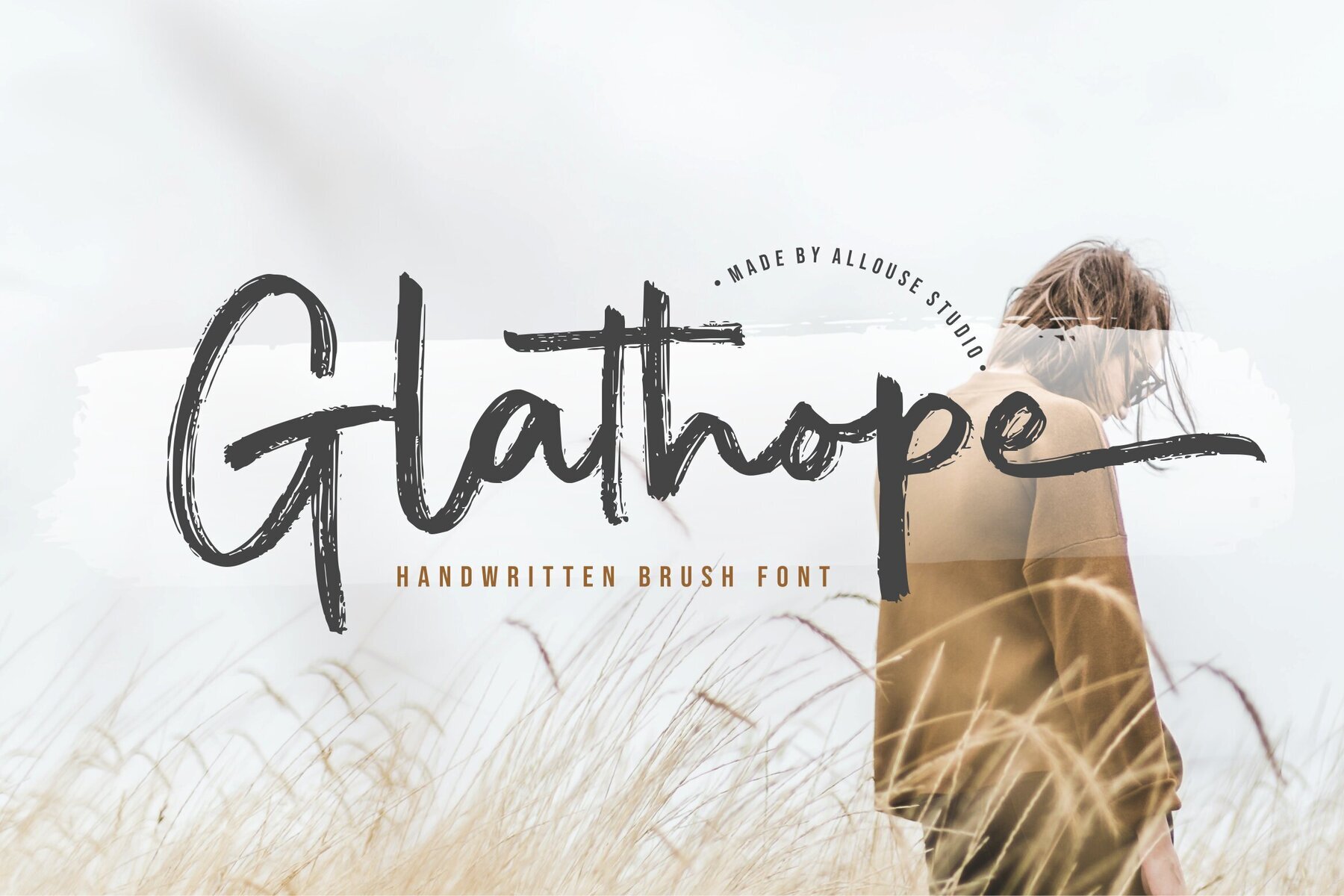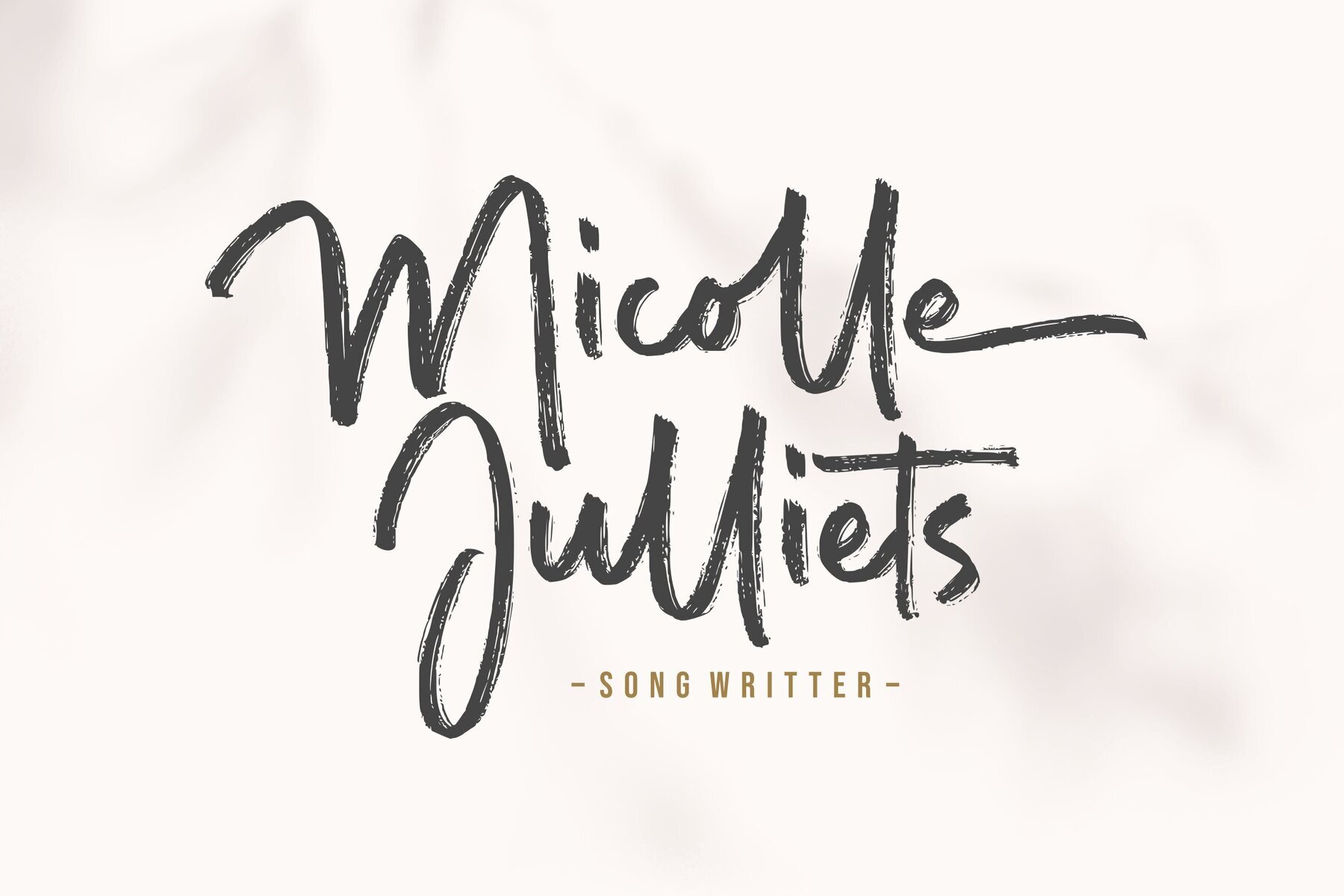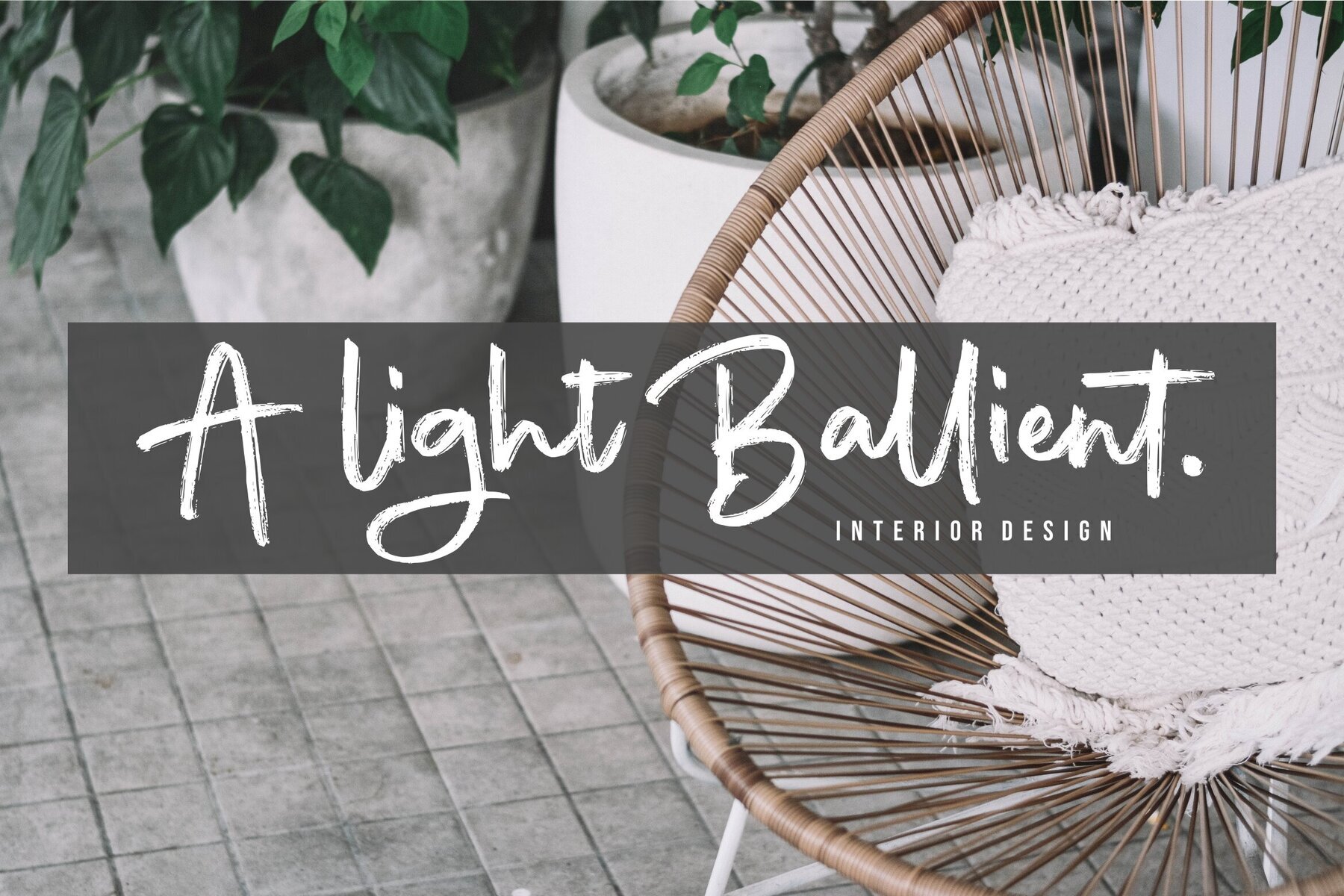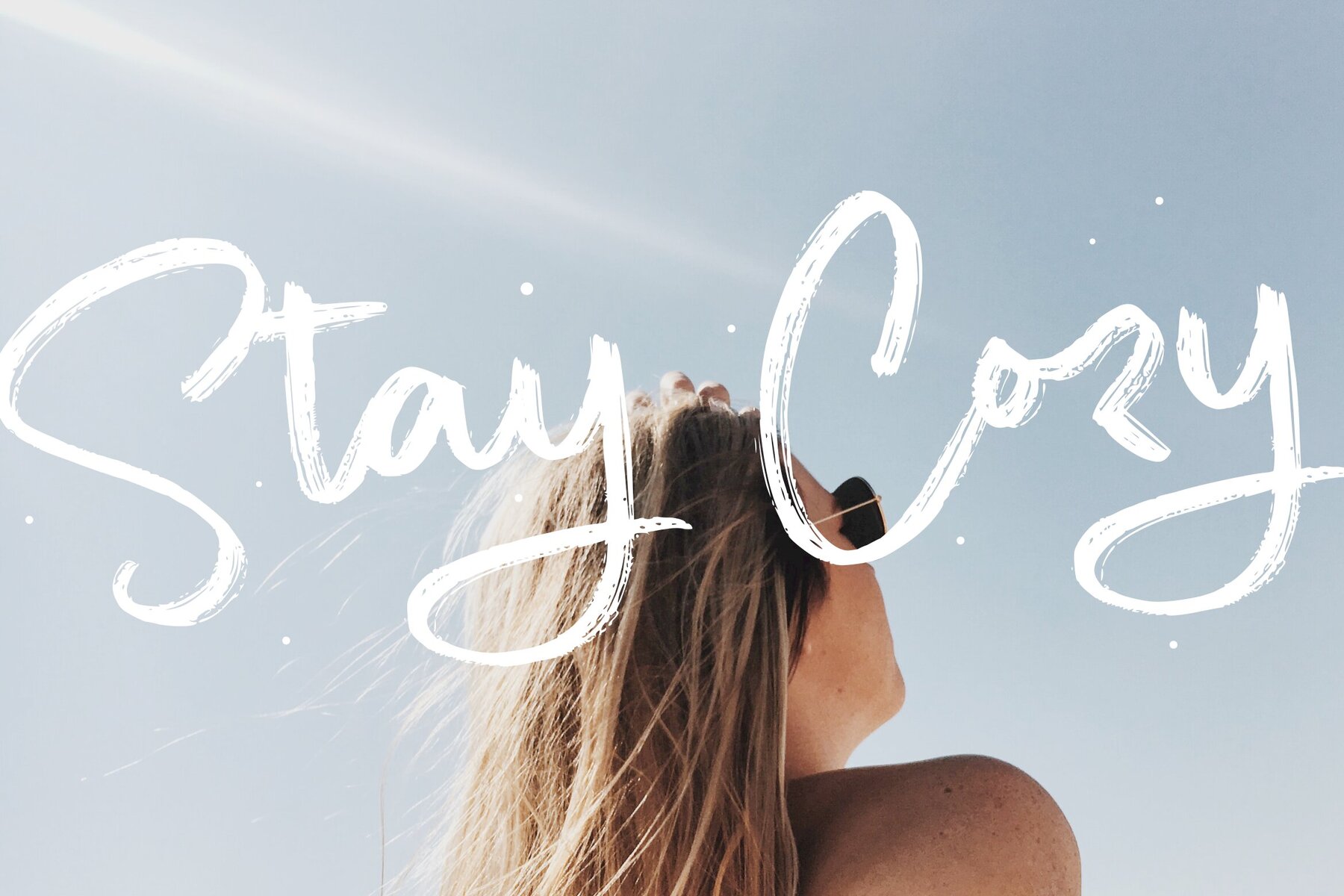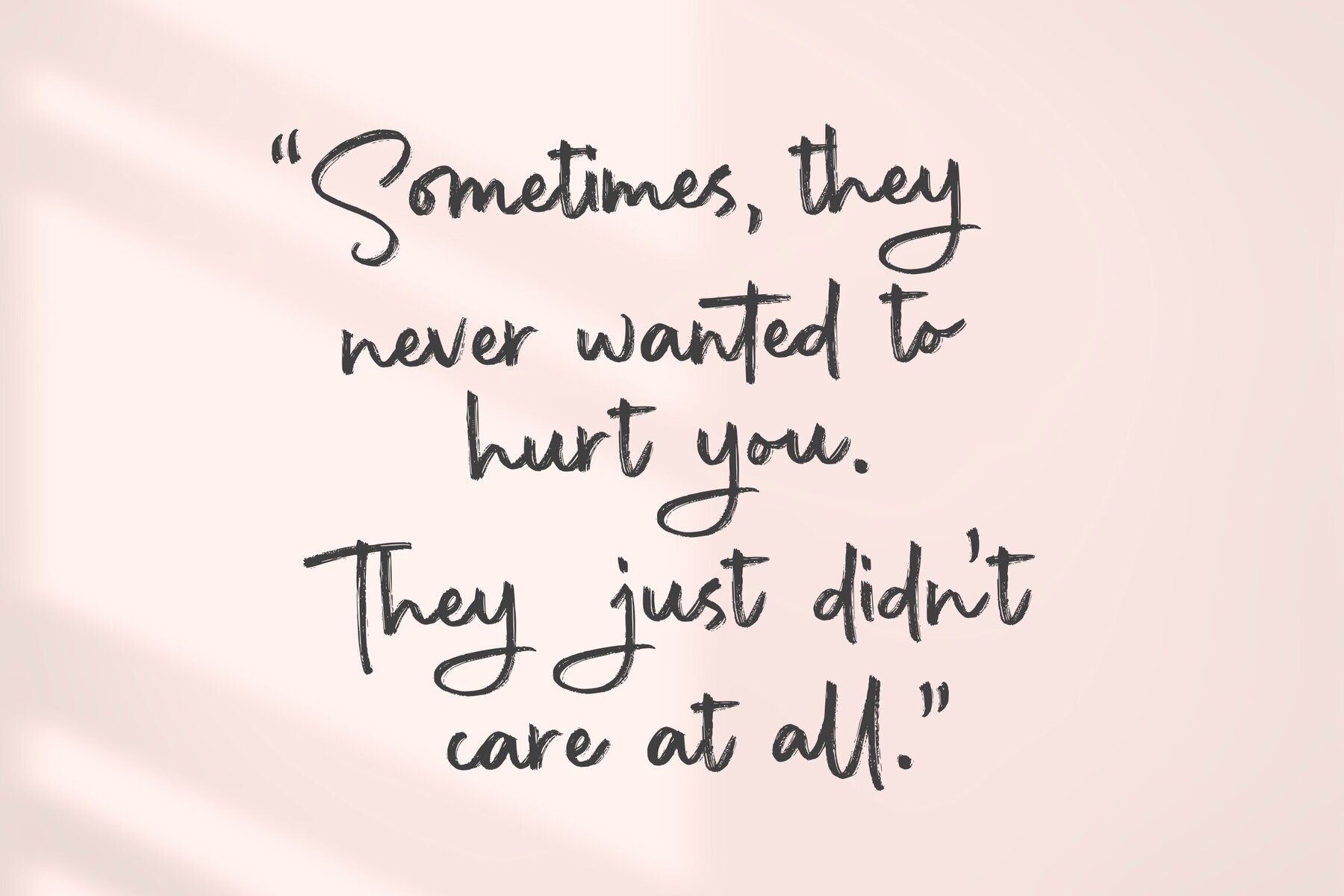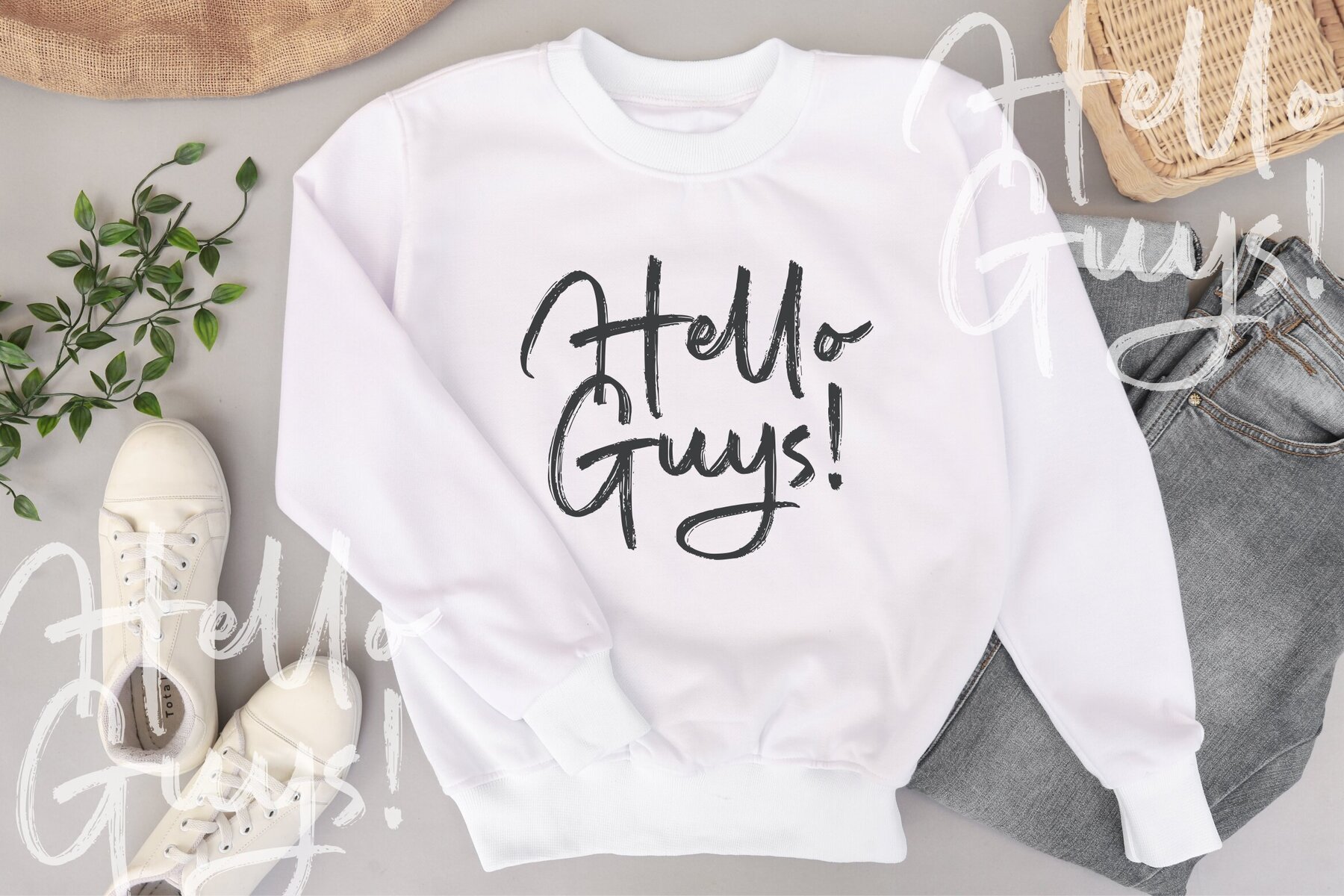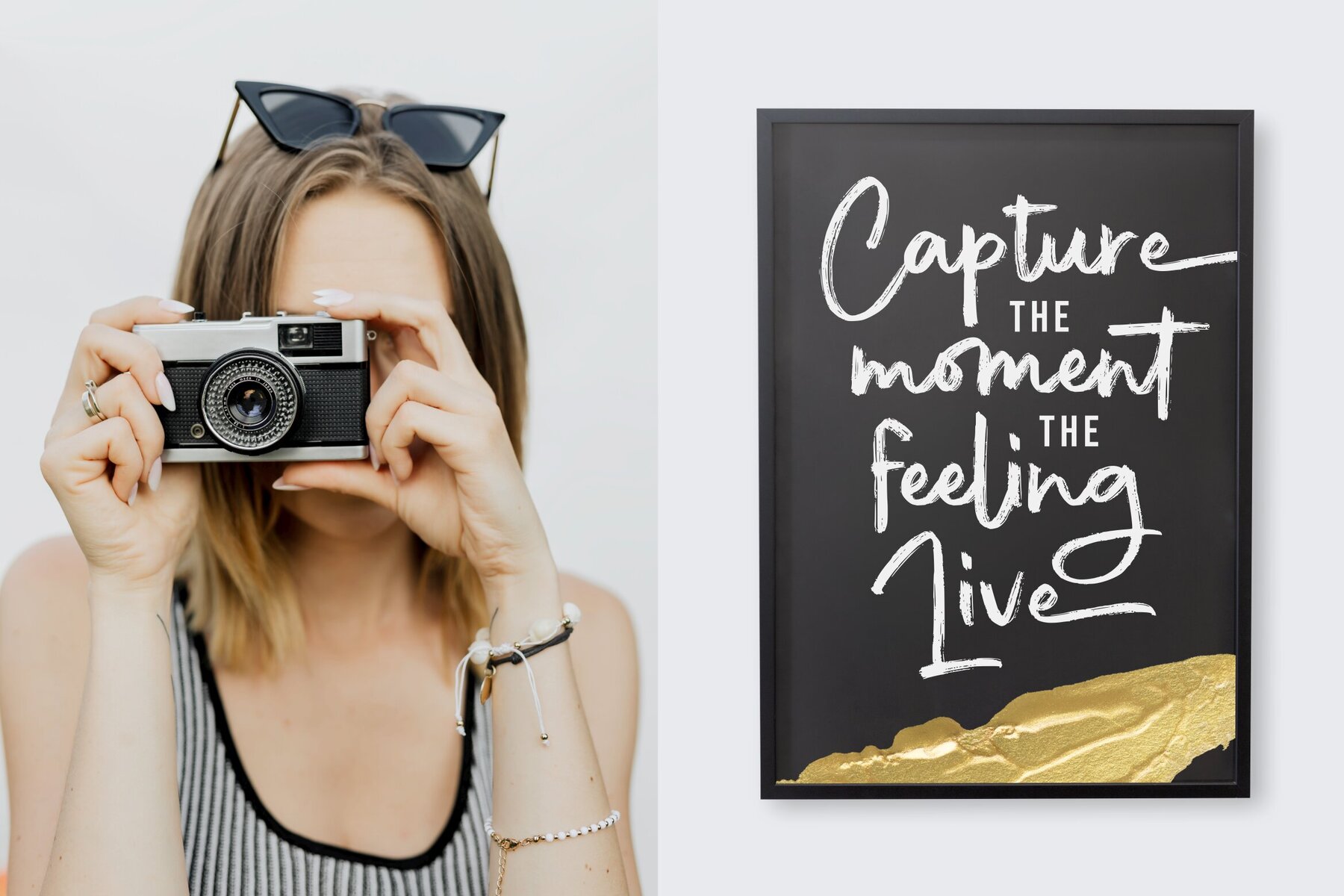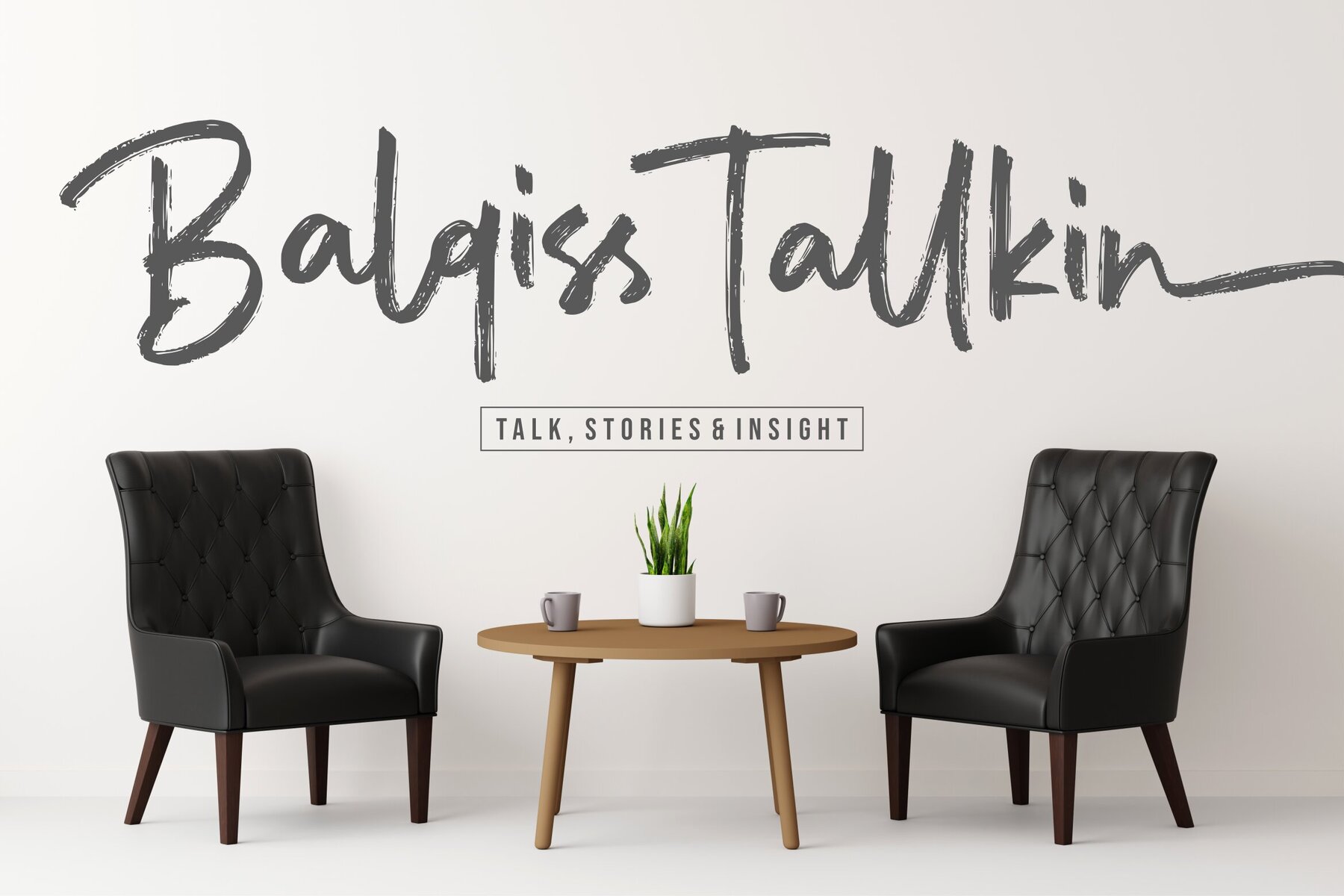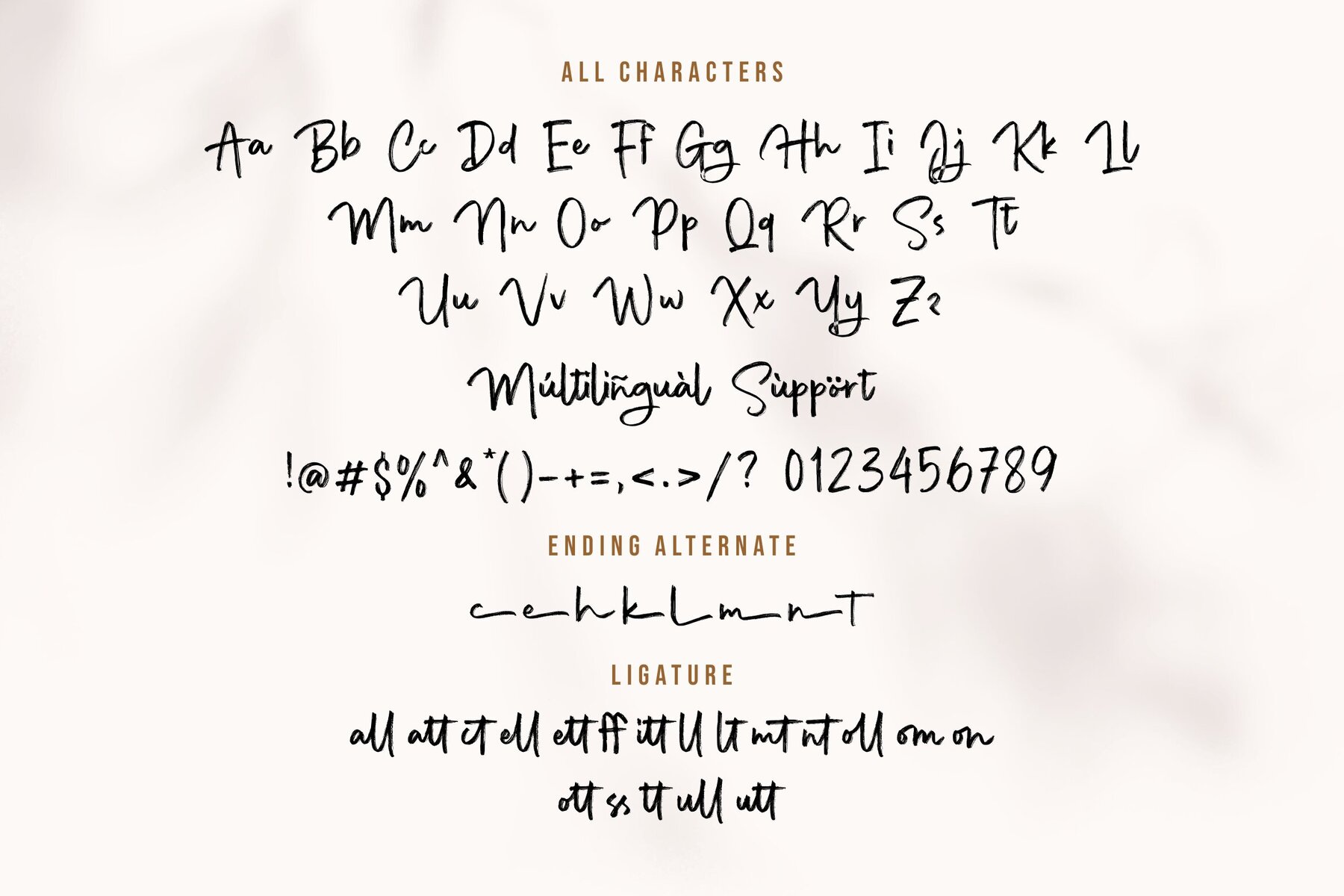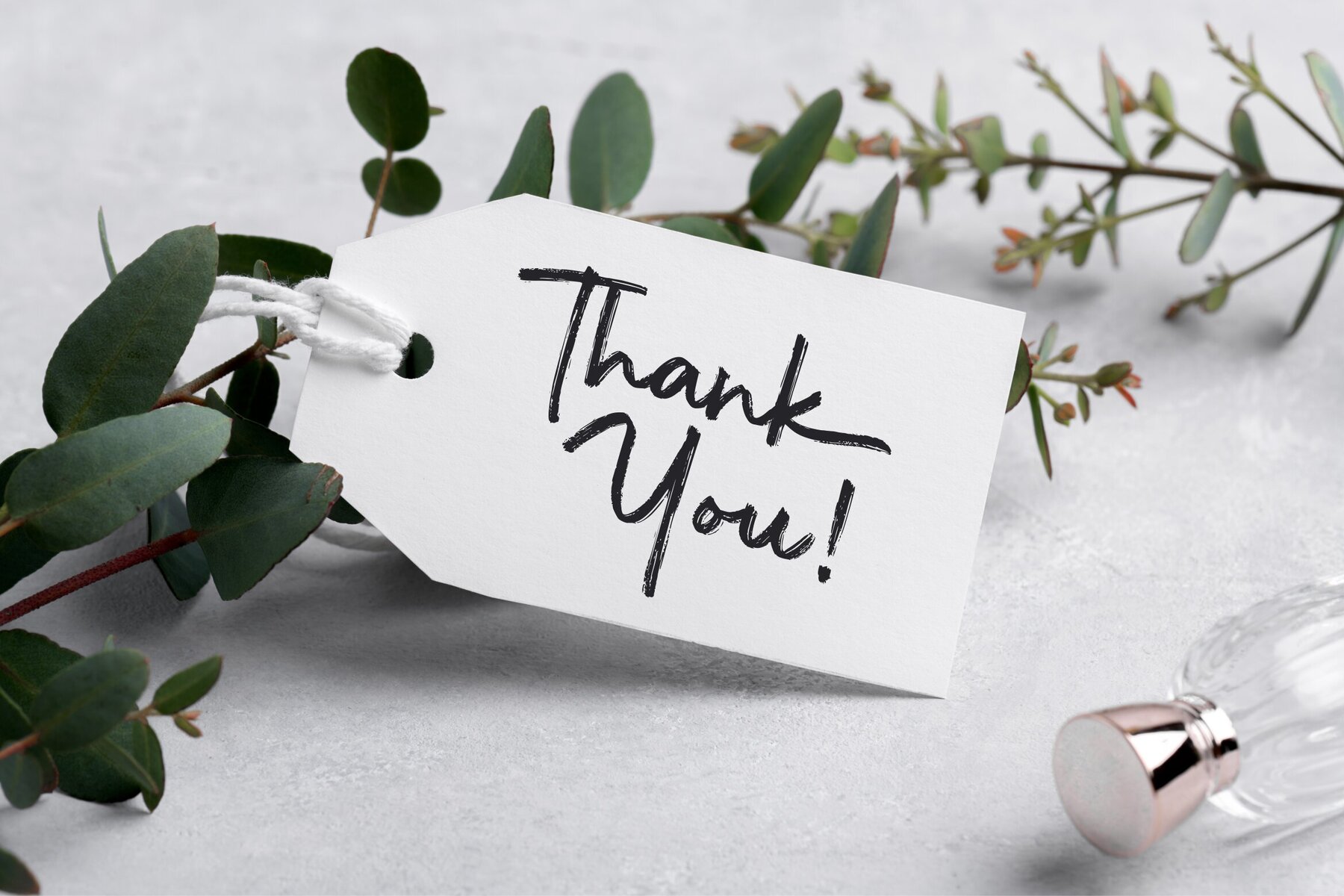
Glathope Font
Glathope Regular
Glathope brings an elegant touch to diverse creative projects. Ideal for product packaging and branding, it seamlessly integrates into magazine layouts, captures attention on social media, and adds sophistication to wedding themes. Its adaptability ensures your words resonate, standing out against any background.Glathope: Versatility in Design